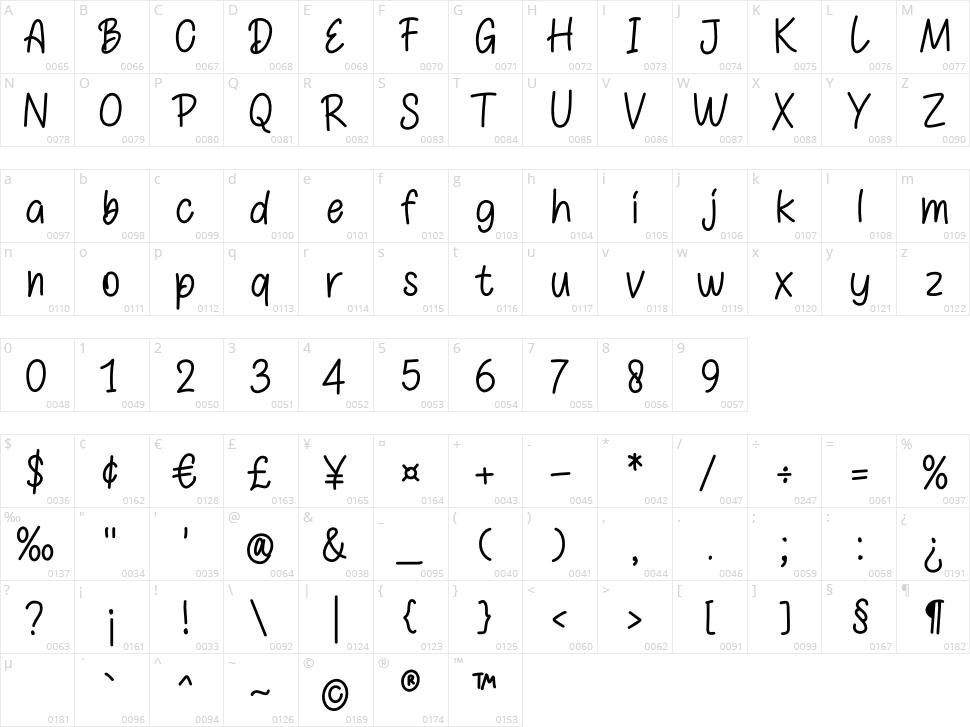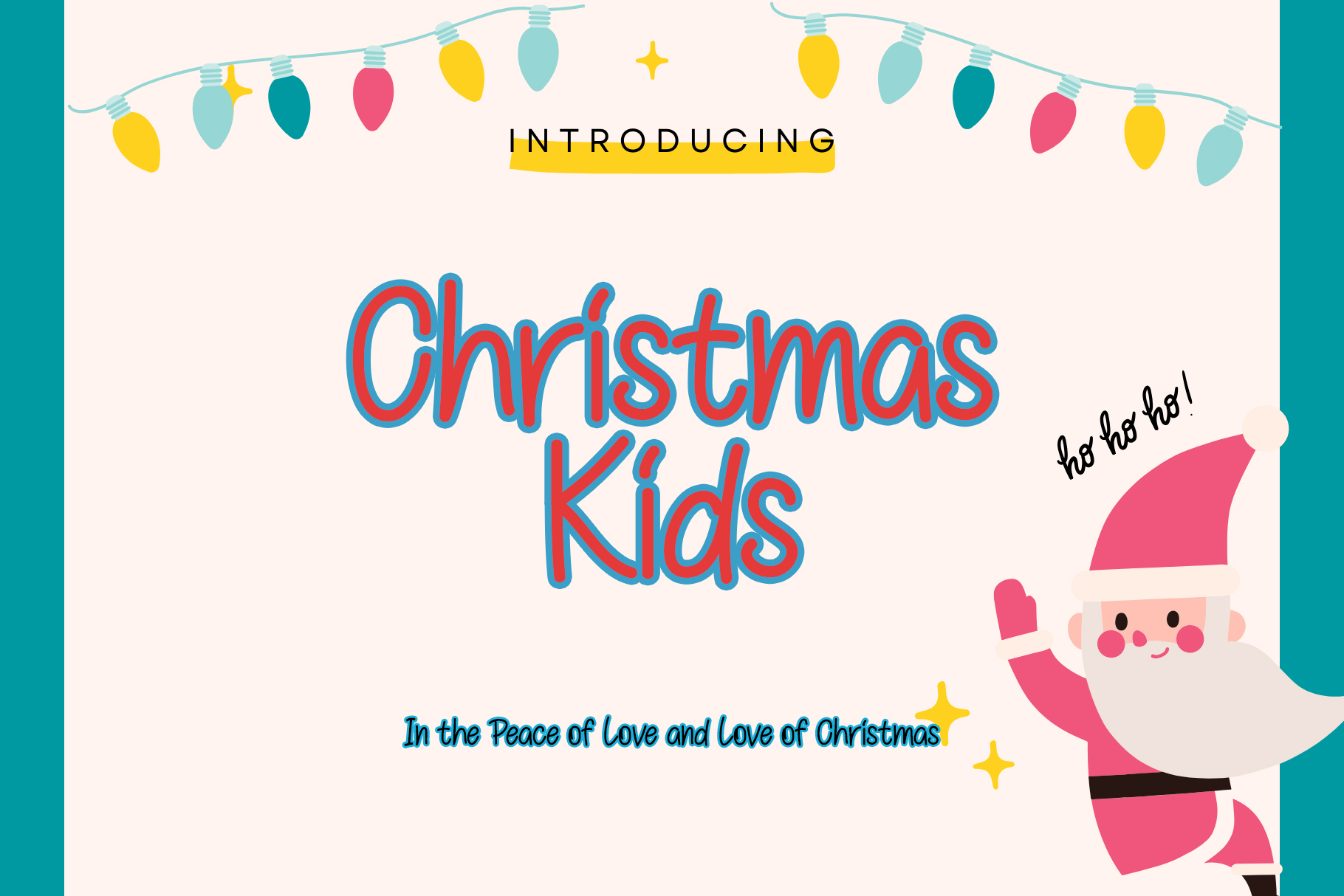
Christmas Kids
Christmas Kids is a cute, unique, and friendly display font. It has a modern yet whimsical style and will undoubtedly immerse your designs into a magical world. This font is perfect for various Christmas and New Year design purposes.